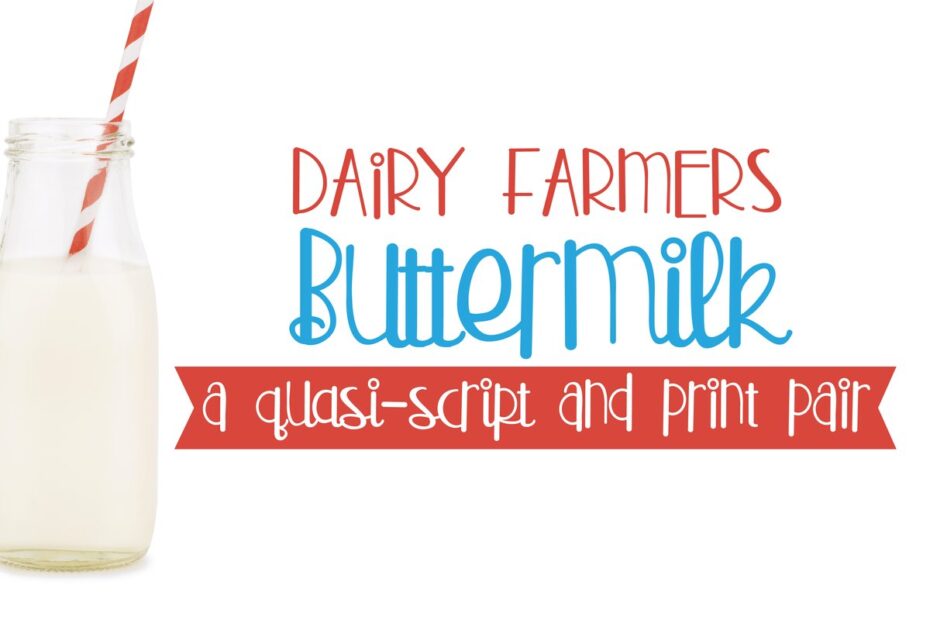
The Perfect Dose of Whimsy: Buttermilk Font
As a designer, there’s nothing quite like the thrill of stumbling upon the perfect font to elevate a project. It’s that moment when everything clicks, and your vision starts to take shape. For me, that moment came when I discovered the delightful Buttermilk Font – a cute, quasi-script that adds a touch of whimsy to any product.
Buttermilk Font is a charming companion to its sister font, Buttermilk, and was designed to bring a sense of playfulness to your designs. With its unique blend of script and print elements, it’s the perfect addition to any project that needs a little extra personality. Whether you’re creating a branding package, a packaging design, or a website, Buttermilk Font is sure to bring a smile to your customers’ faces.
As a valuable addition to any designer’s toolkit, Buttermilk Font offers endless possibilities for creative expression. Its versatility and charm make it a must-have for anyone looking to add a touch of whimsy to their work.
- Unique Characteristics: Buttermilk features a clean, modern design with rounded edges and a subtle rounded sans-serif style.
Review: Buttermilk Font
I’ve had the chance to work with the Buttermilk Font, and I must say it’s a unique addition to any design project. ✨ Its playful, handwritten feel makes it perfect for titles, headings, and even entire quotes. The subtle texture and imperfections give it a personal touch that’s hard to find in digital fonts.
- ✨ Works well for titles and headings: Buttermilk Font shines when used for emphasis, and its large x-height makes it easy to read at smaller sizes.
- ✨ Versatile: While it’s often associated with feminine designs, Buttermilk Font can also be used for modern, trendy, or even rustic projects.
- ✨ Great for quotes and short paragraphs: The font’s personality makes it perfect for showcasing inspiring quotes or short passages.
That being said, there are a few limitations to consider. ⚠️ The font can be a bit too playful for formal projects or serious content. Additionally, its large x-height can make it look a bit clumsy at very small sizes. The font also lacks a condensed version, which might limit its use in certain design scenarios.
Overall, I think Buttermilk Font is a great choice for designers looking for a unique, handwritten feel. While it may not be the best fit for every project, it’s definitely worth having in your font library. With a little creativity, you can use it to add personality and charm to your designs.
Getting the Most Out of Buttermilk Font
Buttermilk Font is a versatile font that works well in a variety of design contexts. To get the most out of it, consider the following tips:
- Use it for headings and titles to add a touch of elegance to your design.
- Pair it with other fonts to create a unique and eye-catching typography.
Alternatives to Buttermilk Font
Playfair Display is a luxurious, elegant serif font suitable for high-end branding, magazine titles, and advertising. It’s perfect for adding sophistication and refinement to your design.
Compared to Buttermilk Font, Playfair Display has a more refined and traditional feel. While Buttermilk Font is rustic and casual, Playfair Display is formal and luxurious. Use Playfair Display when you want to convey high-end quality and sophistication.
Great Vibes is a modern, elegant script font ideal for creative projects, branding, and packaging. It’s perfect for adding a touch of sophistication and whimsy to your design.
Compared to Buttermilk Font, Great Vibes is more modern and elegant. While Buttermilk Font is rustic and casual, Great Vibes is refined and sophisticated. Use Great Vibes when you want to convey creativity and elegance.
While the Buttermilk Font is primarily designed for digital use, it can also be used for print applications. However, it is recommended to use it at larger point sizes and with proper scaling to maintain its legibility and aesthetic appeal.